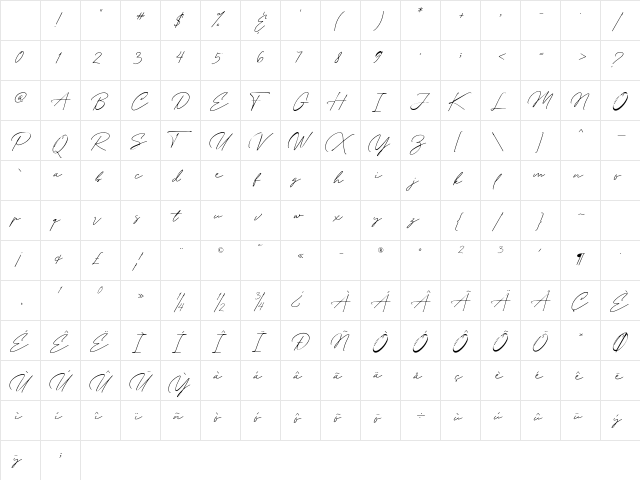
Complete Andellia Davilton Regular glyph index. Displaying only characters natively supported by Andellia Davilton Regular font.
Andellia Davilton is a composed and adaptable typeface that performs quietly and consistently across a wide range of design contexts.